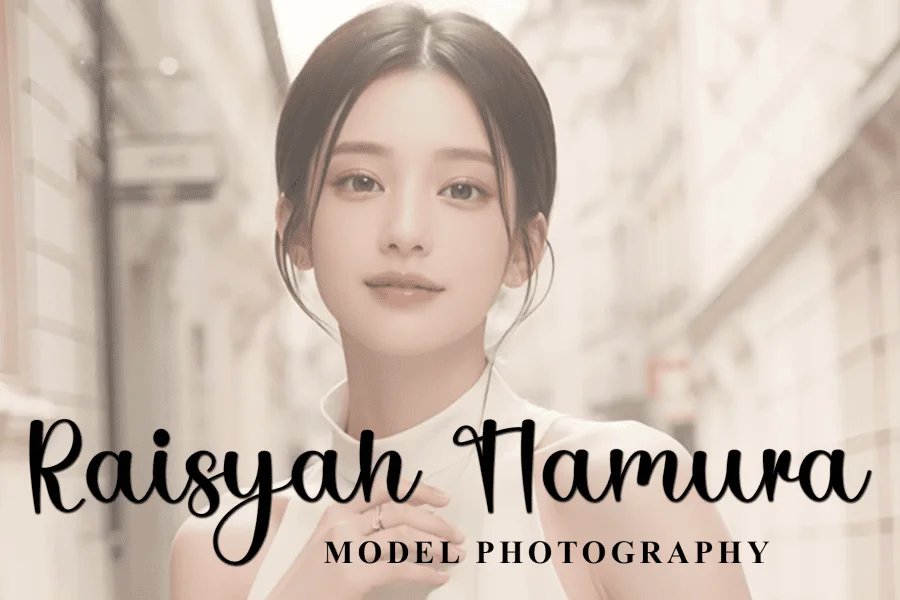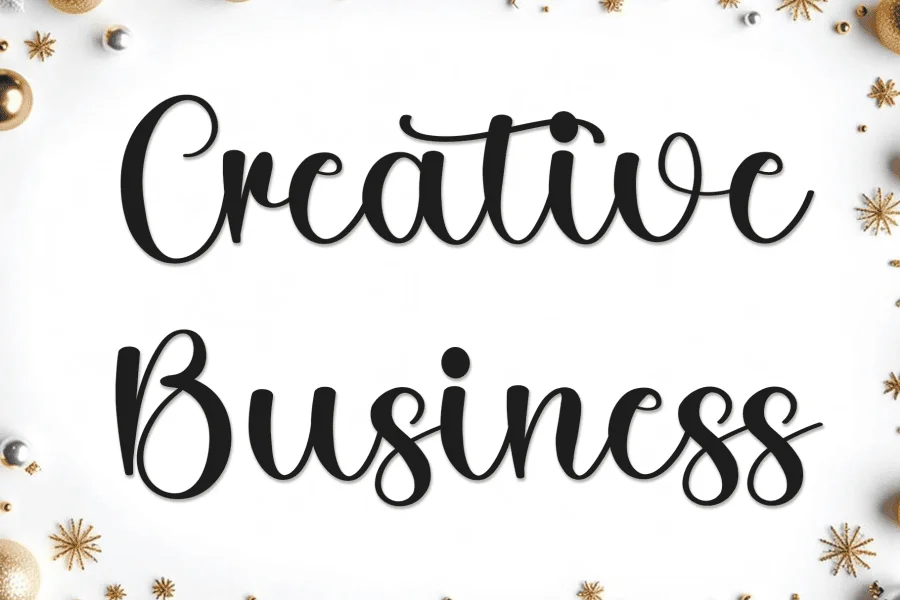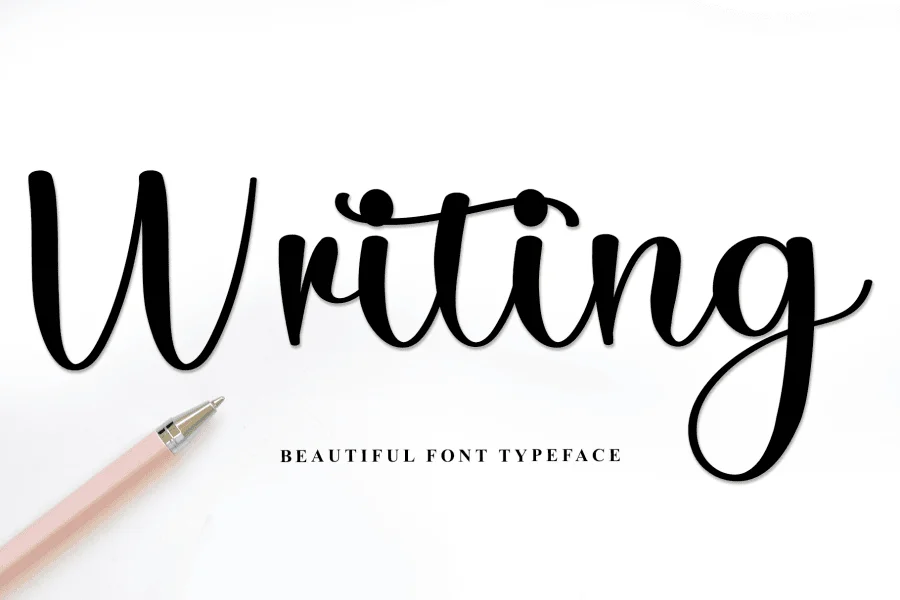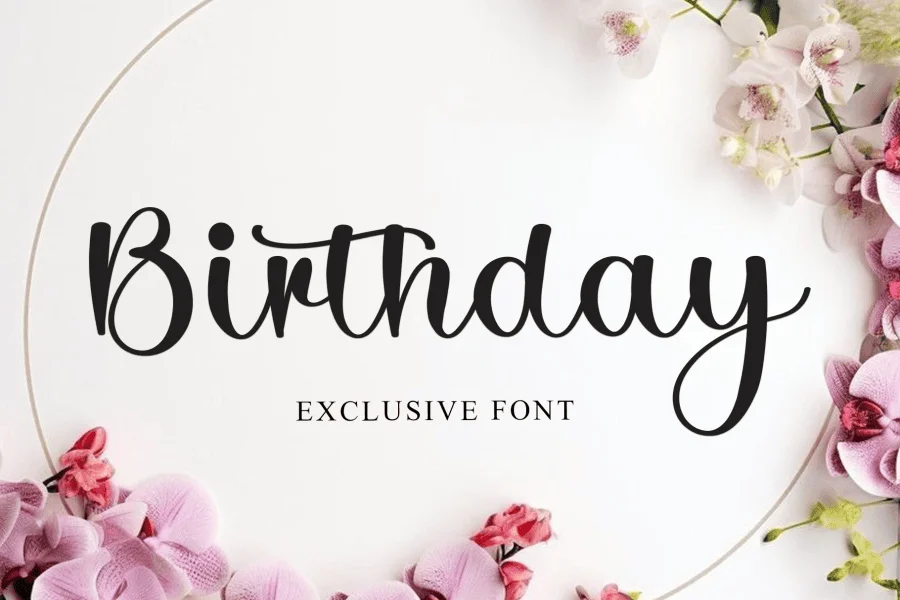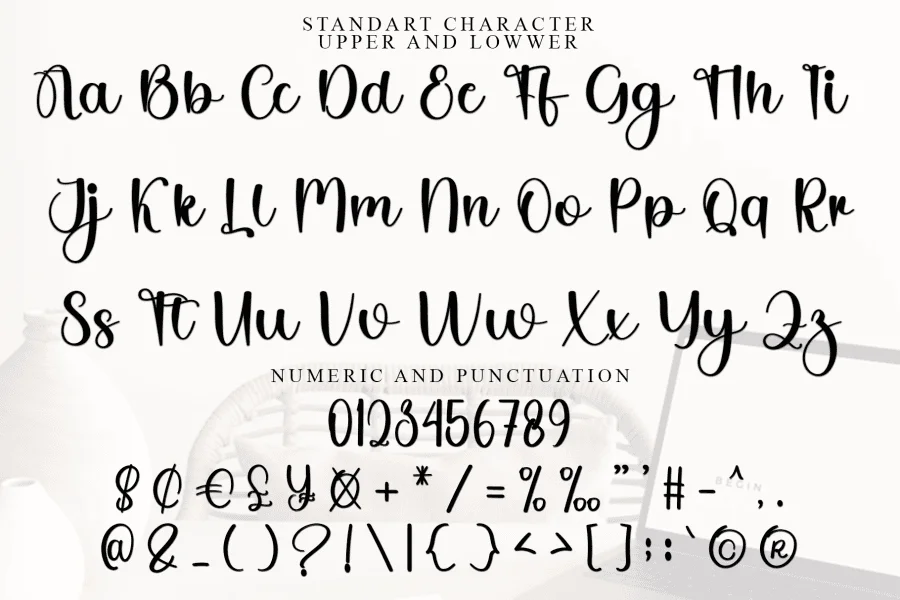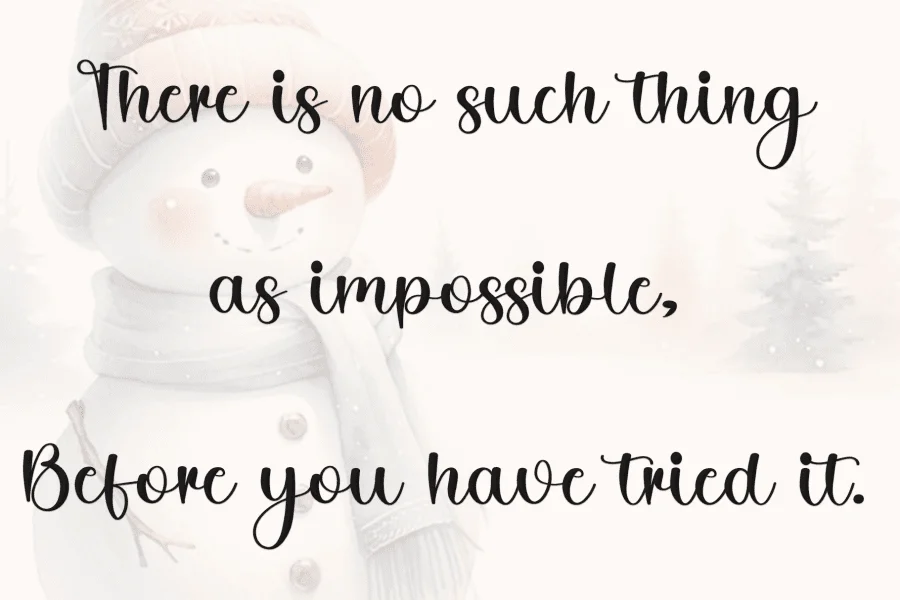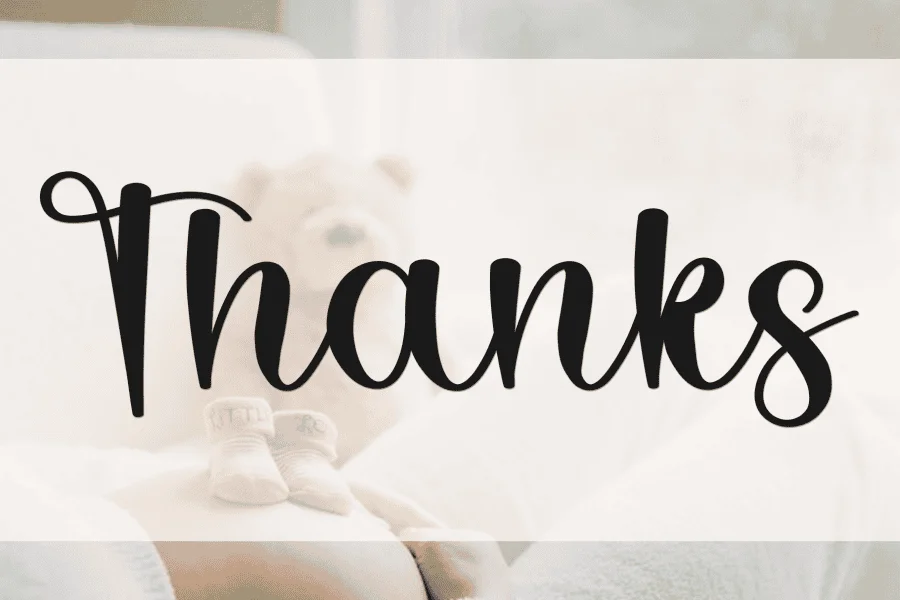
Besties Christmas is an elegant, fluid handdrawn script typeface that captures a warm, personal aesthetic. Defined by its rhythmic bounce and varying stroke weights, the design mimics natural brush calligraphy with smooth, sweeping curves and delicate, elongated terminals. Its structure balances tall, expressive ascenders with soft, rounded loops, creating a friendly yet sophisticated texture that flows effortlessly across the page.
This typeface is perfectly suited for projects requiring a touch of intimate charm and festive elegance, such as holiday greeting cards, wedding stationery, and boutique product packaging. Its graceful, hand-drawn quality also makes it an excellent choice for lifestyle photography watermarks, creative branding, and editorial headlines that seek to convey a sense of warmth, celebration, and personal connection.